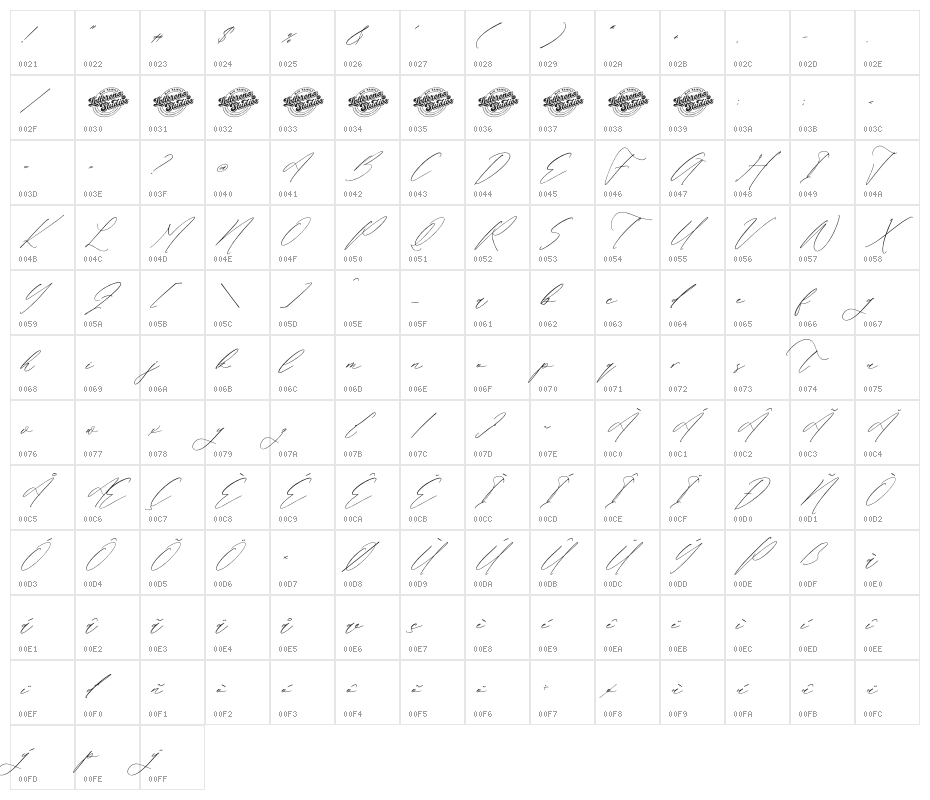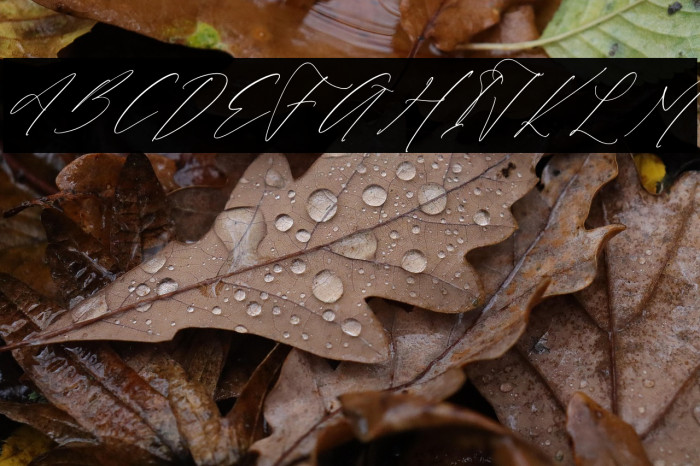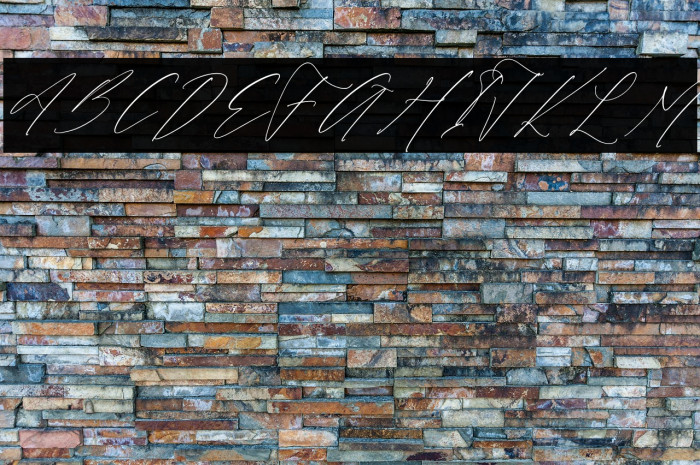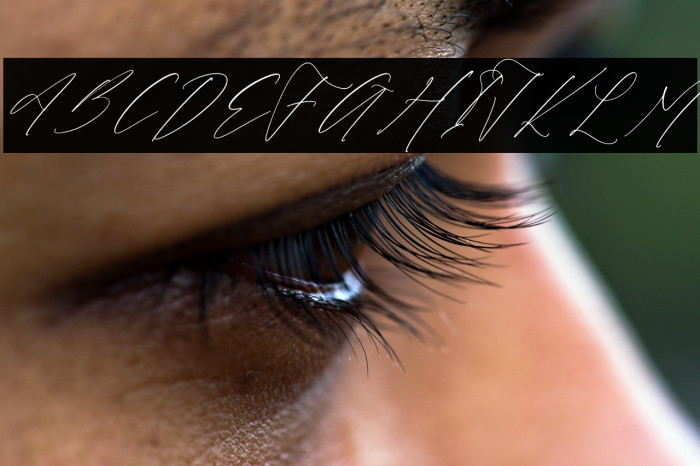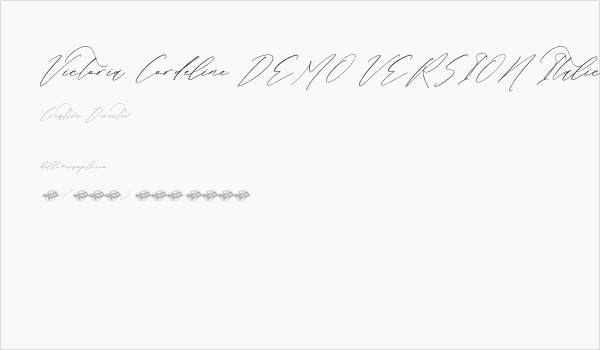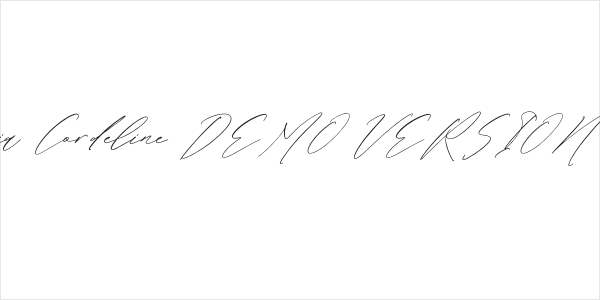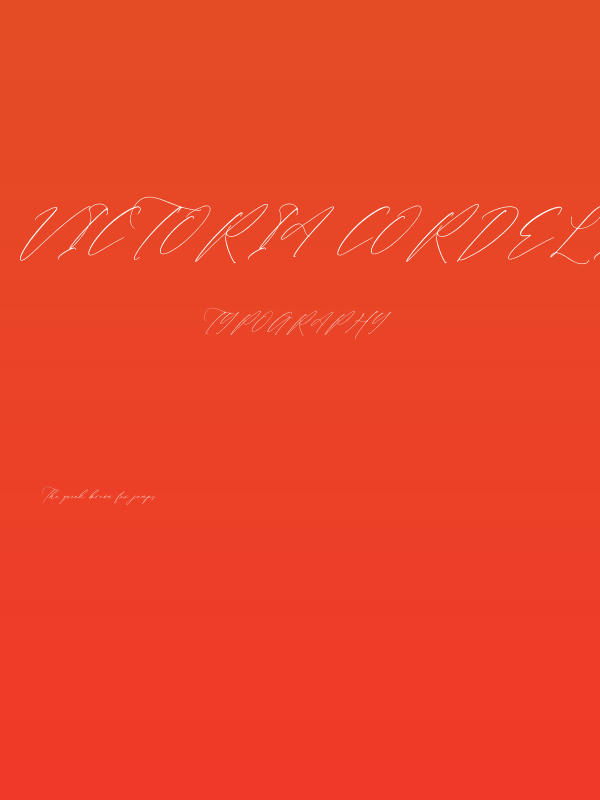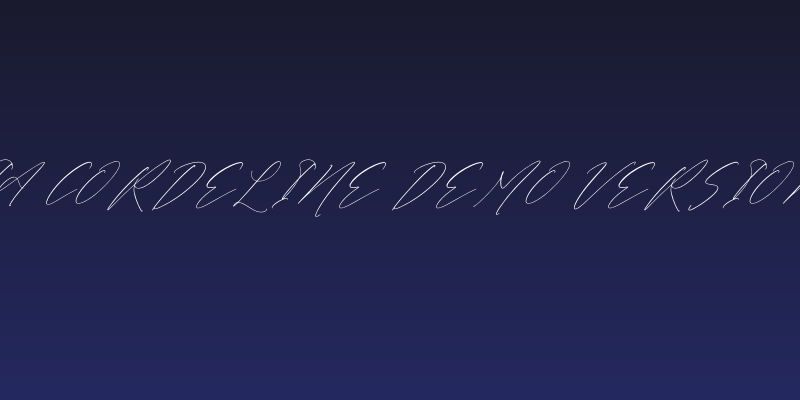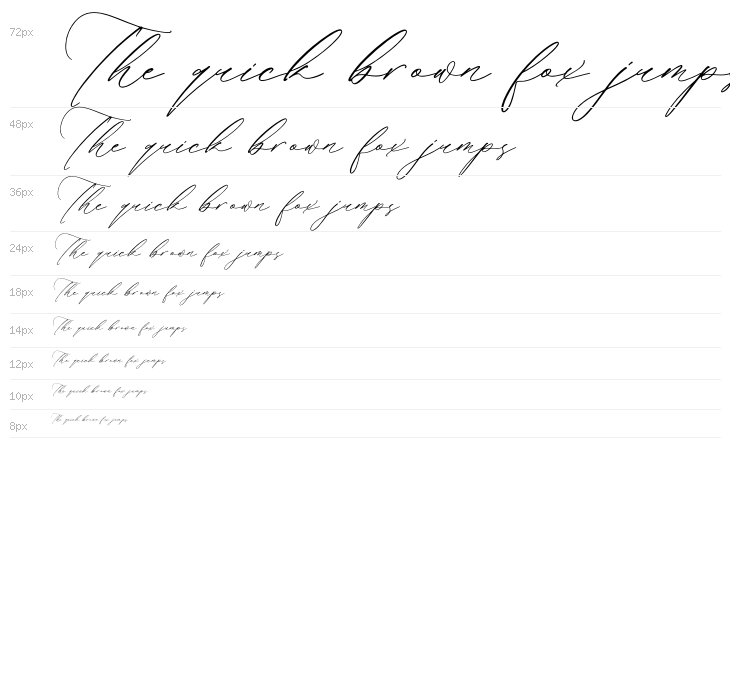
Victoria Cordeline DEMO VERSION Italic Font
Victoria Cordeline DEMO VERSION Italic Description
Elegant and flowing script font with a handwritten style, featuring high contrast and delicate strokes.
| Use Case | Logos, Invitations |
| Proposed Projects | Invitations, greeting cards, elegant branding. |